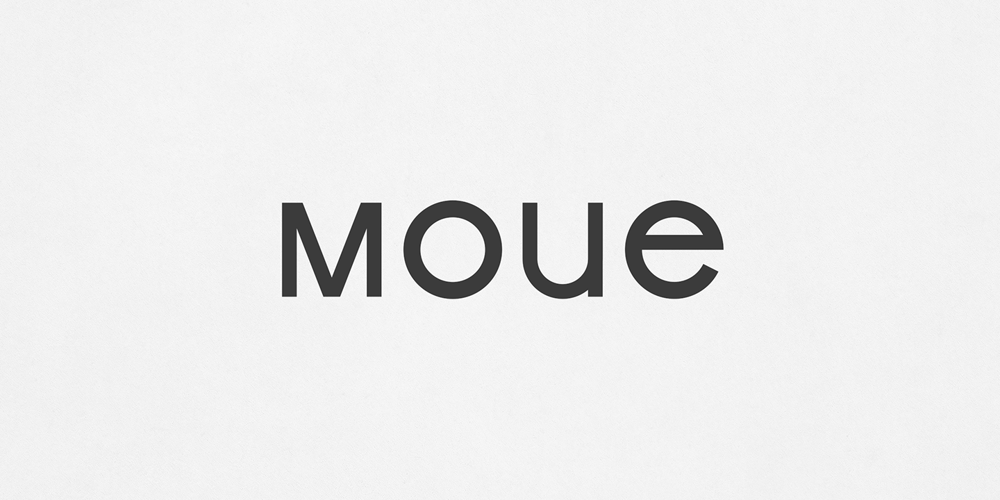
Moue Font Family was designed by Vladimir Fedotov, Plamen Petrov and published by VP Creative Shop. Moue contains 3 styles and family package options. Introducing Moue – display typeface – 3 stylesMoue is bold and weird typeface with 3 fonts and multilingual support. It’s a very versatile font that works great in large and small sizes.This font is perfect for branding projects, home-ware designs, product packaging, magazine headers – or simply as a stylish text overlay to any background image.FEATURES Uppercase, lowercase, numeral, punctuation & Symbol 3 styles Multilingual support No special software is required to type out the standard characters of the Typeface. Canva friendly Feel free to contact me if you have any questions!Mock ups and backgrounds used are not included.Thank you! Enjoy!